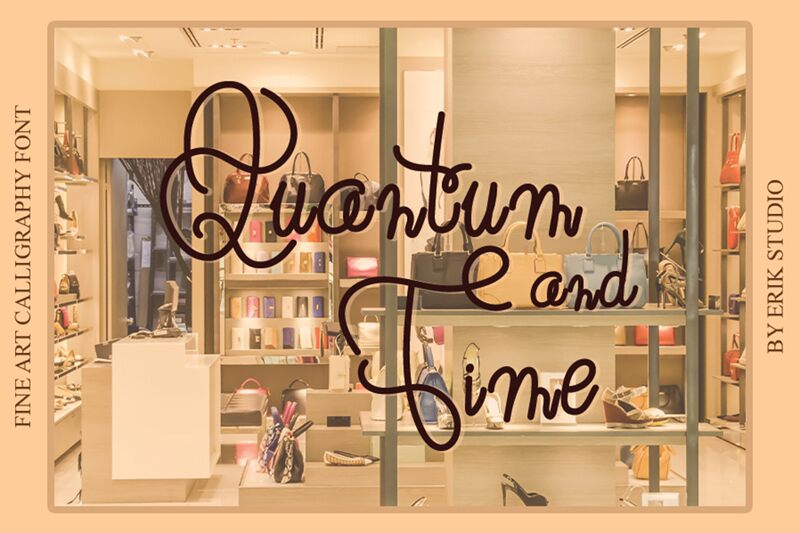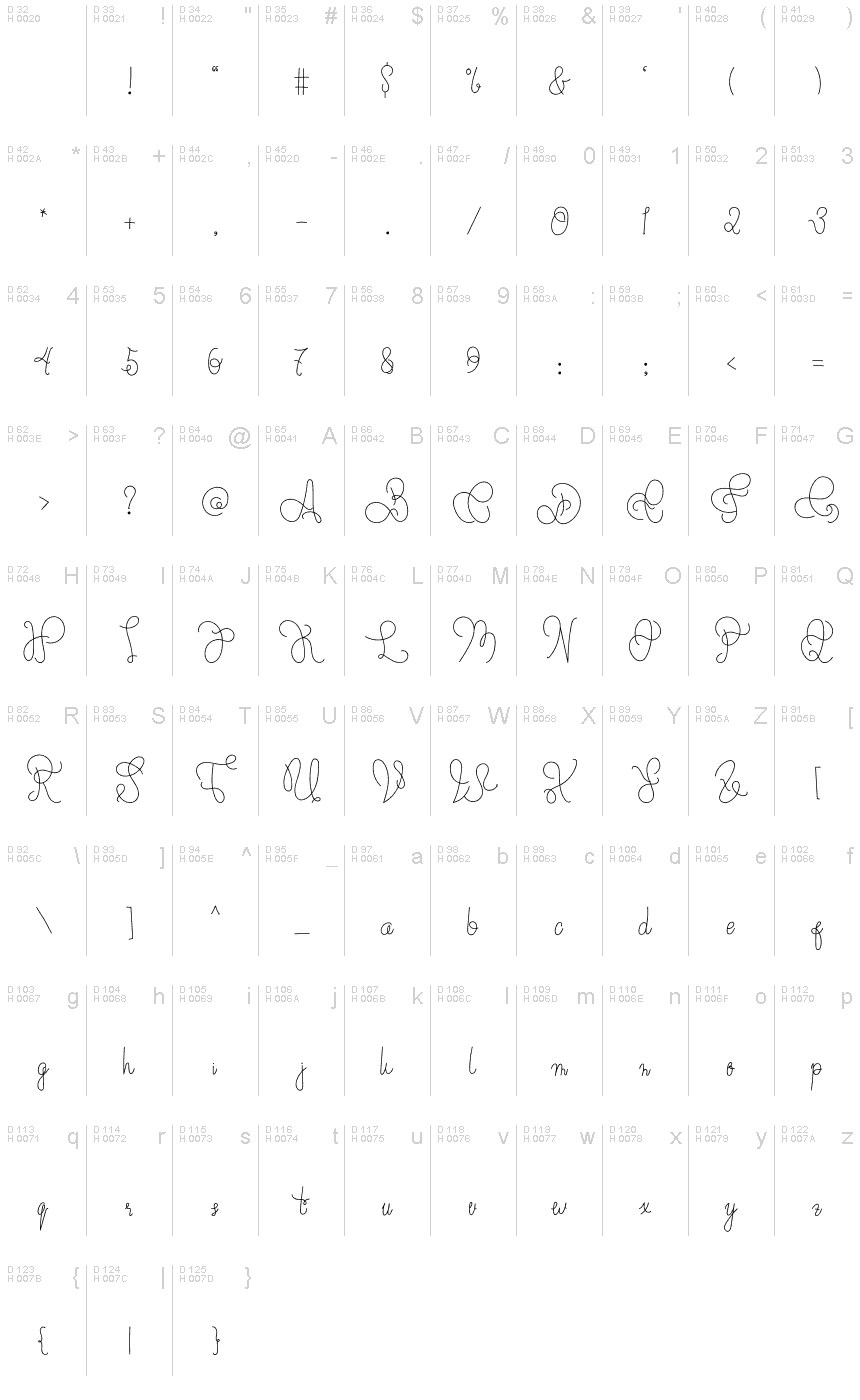
Quantum And Time
Quantum and Time is a well balanced and delicate handwritten font. It is defined by beautiful curves and is perfect for fashion branding or editorial designs. Add it confidently to your projects, and you will love the results.